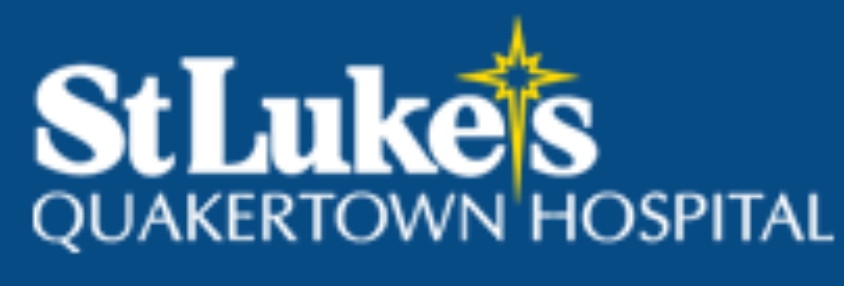
I’ve been wanting ask you guys how you deal with fonts… I have about 1500 installed and a sheet printed out with about 100 that i use commonly.
So, how do you deal with finding a specific one. Any magic solutions other than what i’m doing. I usually have a jpeg for an example.. I see a bunch of people help out on here with that, and that’s fantastic.
right now i spent almost an hour trying to find this one, but still haven’t.
top one looks like a sort of plantin extra bold. if its not it could easily be modified to look same i think..
bottom one looks like optima light, in signlab comes under optic i think.